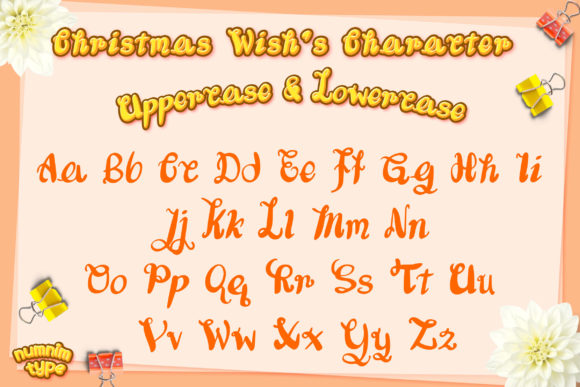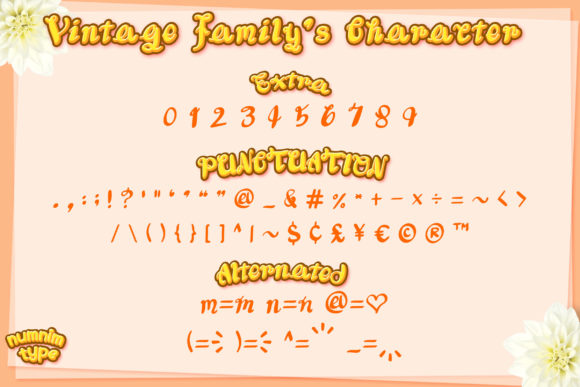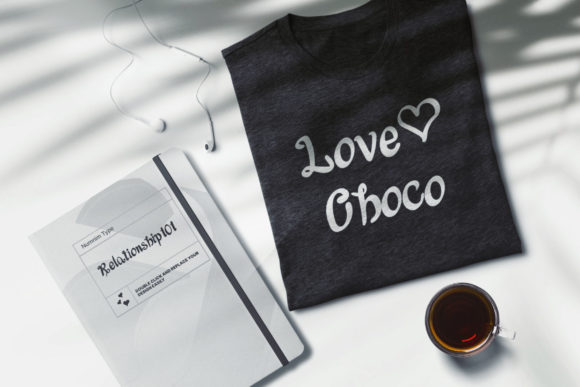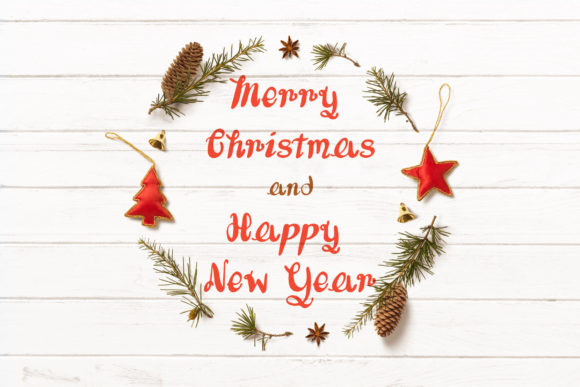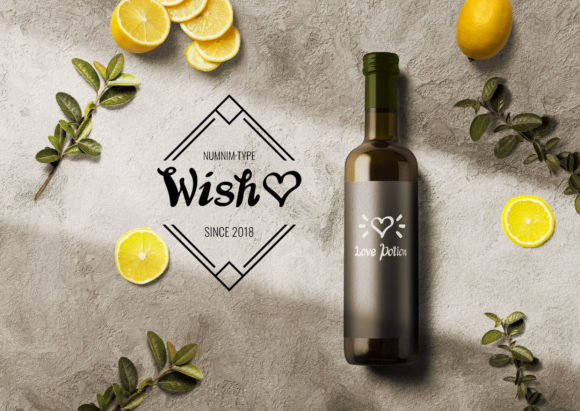
About Christmas Wish Font
Christmas Wish is a magnificent script font with chunky letters complemented with beautiful swashes and fun swirls. The perfect font for greeting cards, social media posts, and so many other crafts and designs! This font is PUA encoded which means you can access the available glyphs and swashes with ease!